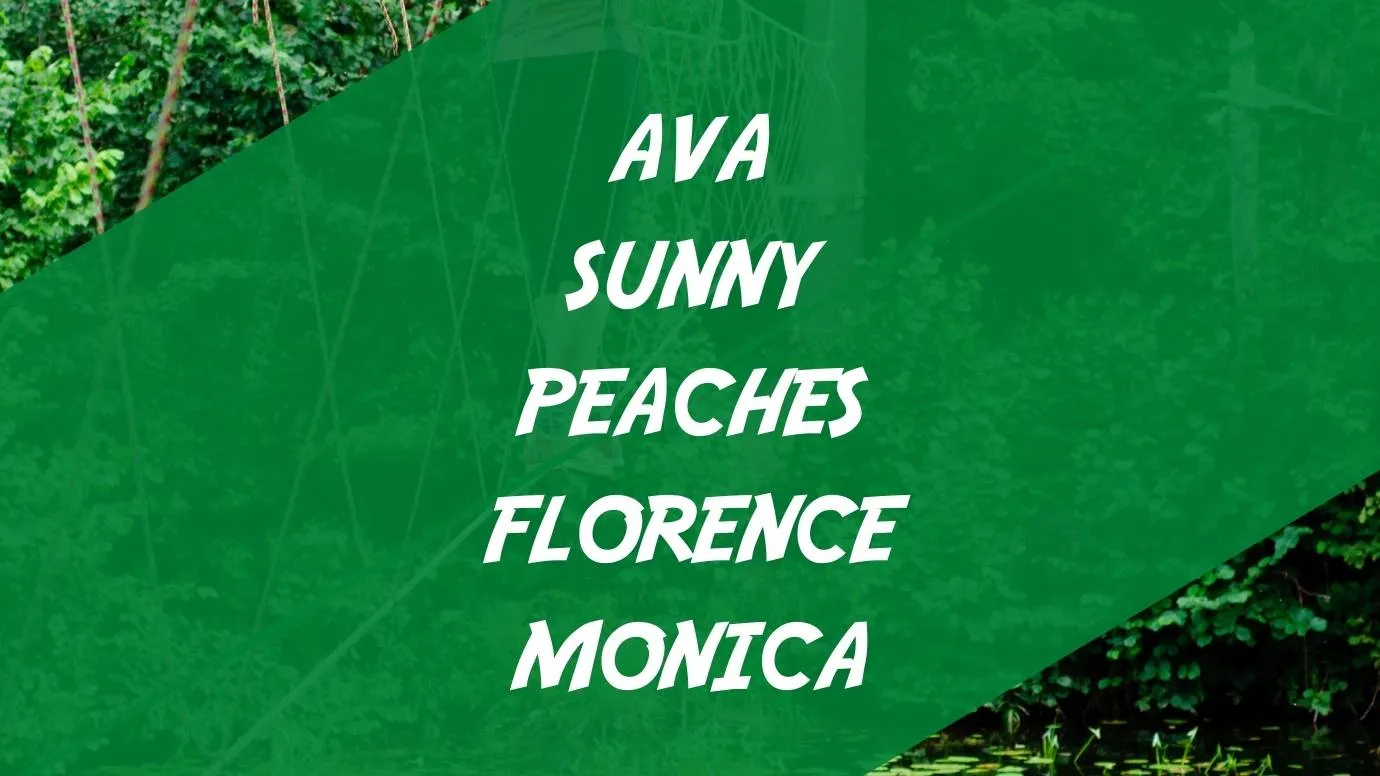
Adventure Font is a group member of the fancy typeface family, the style of this texture is a comic. It is a display typeface that is inspired by the printing typefaces used in 18th-century broadsides and posters. It has a rugged, masculine feel to it, making it perfect for titling headlines and emphatic statements.
While it is not suitable for lengthy passages of text, it is a great choice for short, punchy statements. This typeface is similar to Badaboom BB Font. This is available in a regular weight, making it perfect for headlines and titles.
When using Adventure Font, be sure to set the font size at least 24 points or higher so that the letters are clearly visible. Don’t use too much text in all capital letters, as this can make the typeface appear harsh and uninviting. Instead, use lowercase letters.
Adventure Font is a great choice for titling headlines, emphatic statements, and international projects. You can use it for short, punchy statements as well. This is amazing for tattoos and also use for adobe applications as well.
Designer of Adventure Font
This comic type of font is designed by one of the famous graphic designers which are known, Neale and Shayna Davidson.
This font style is released with two styles of font, the first one is a regular and the other one is a hollow style. Both of these styles consist of glyphs, digits, capital letters, small letters, punctuation, a set of characters, and a wide range of language support.
View of Adventure Font
| Name | Adventure Font |
| Style | Comic |
| Designer | Neale and Shayna Davidson |
What is Adventure Font?
This is a group member of the fancy typeface family, the style of this texture is a comic. It is a display typeface that is inspired by the printing typefaces used in 18th-century broadsides and posters.
Who created Adventure Font?
This comic type of font is designed by one of the famous graphic designers which are known, Neale and Shayna Davidson.